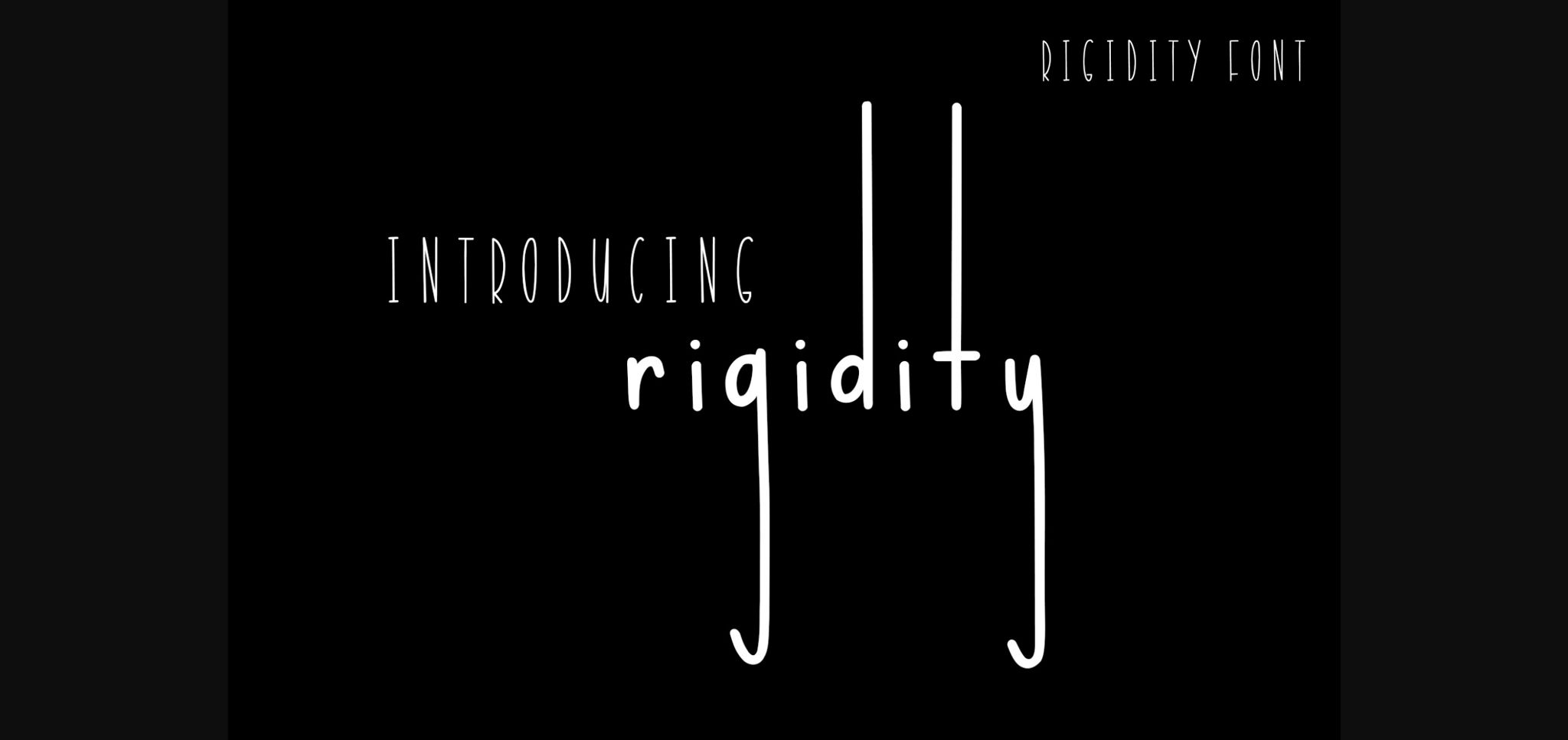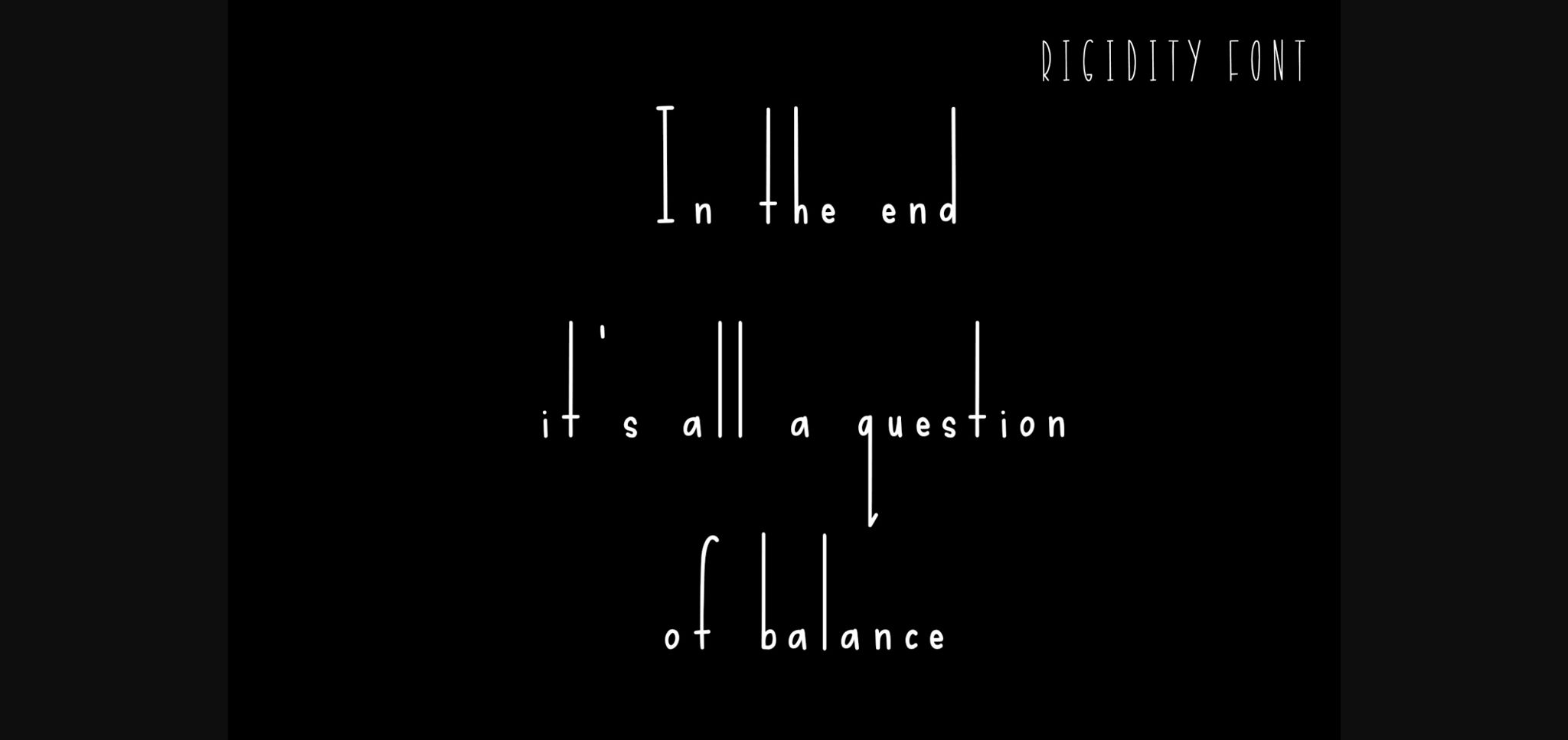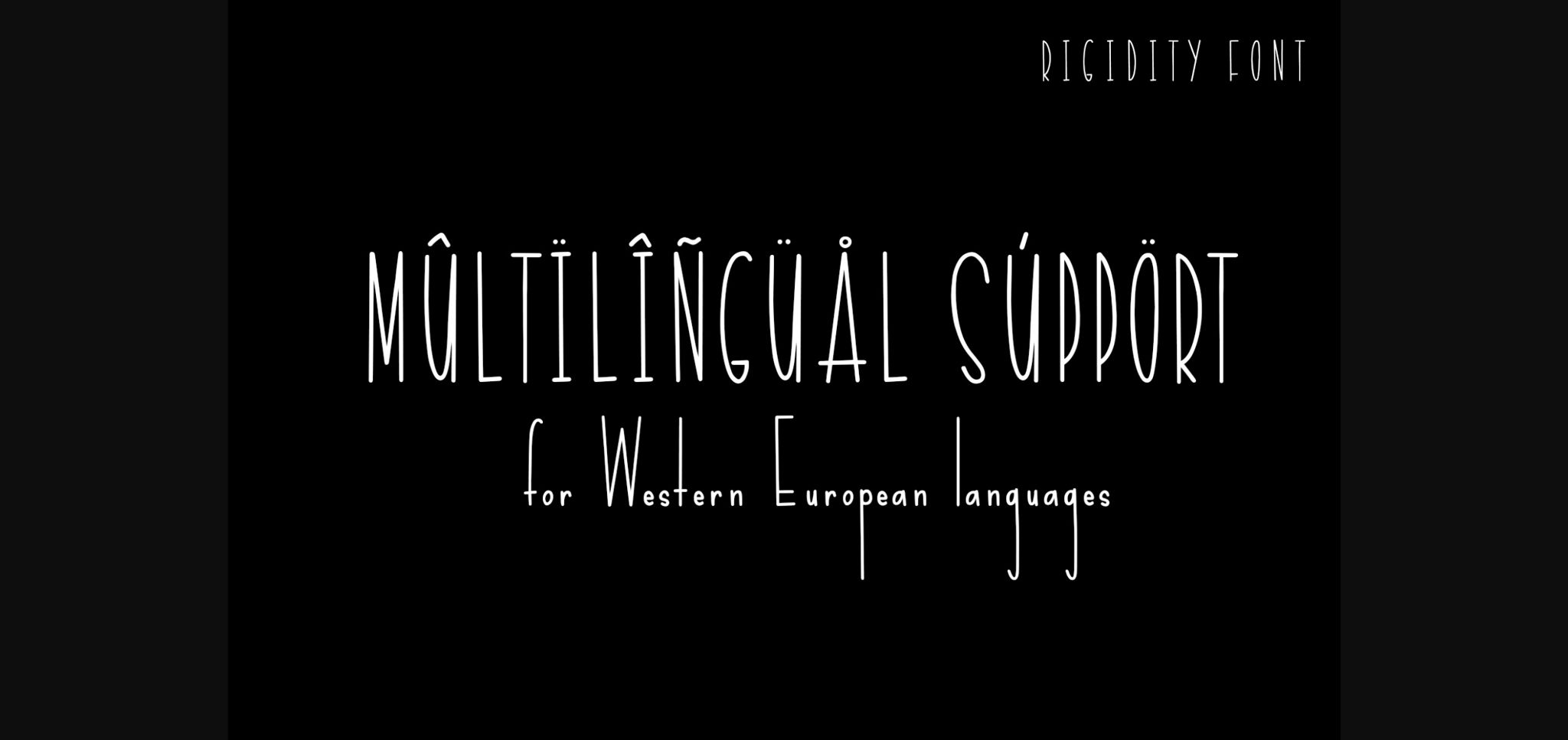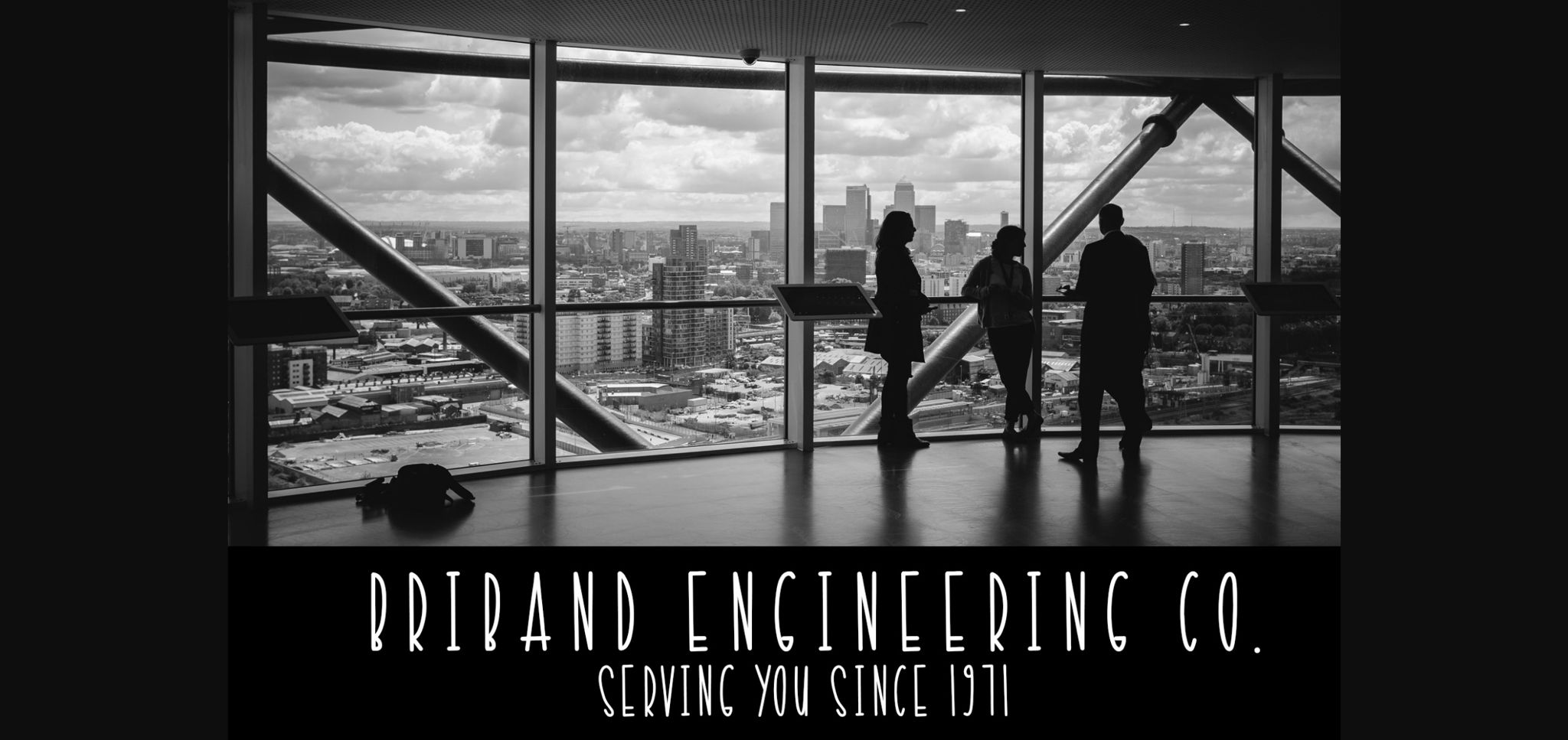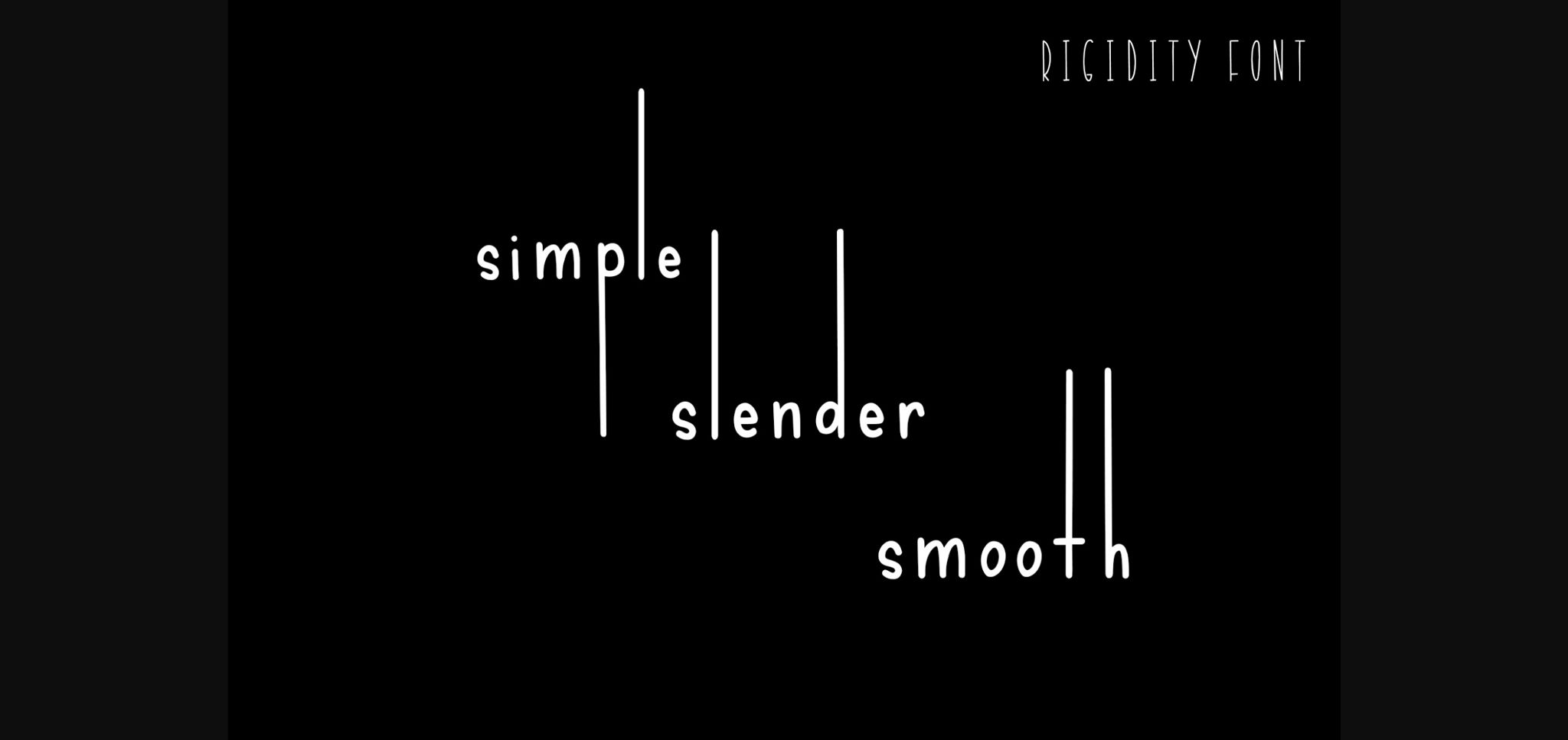
Rigidity Font
About Rigidity Font
The Rigidity is a long and lean font, perfect for any sleek project you are working on! It’s incredibly versatile and pleasing to the eye. With slender smooth ascenders and descenders, this font is sure to be the key for making your next project distinguishable and eye-catching!